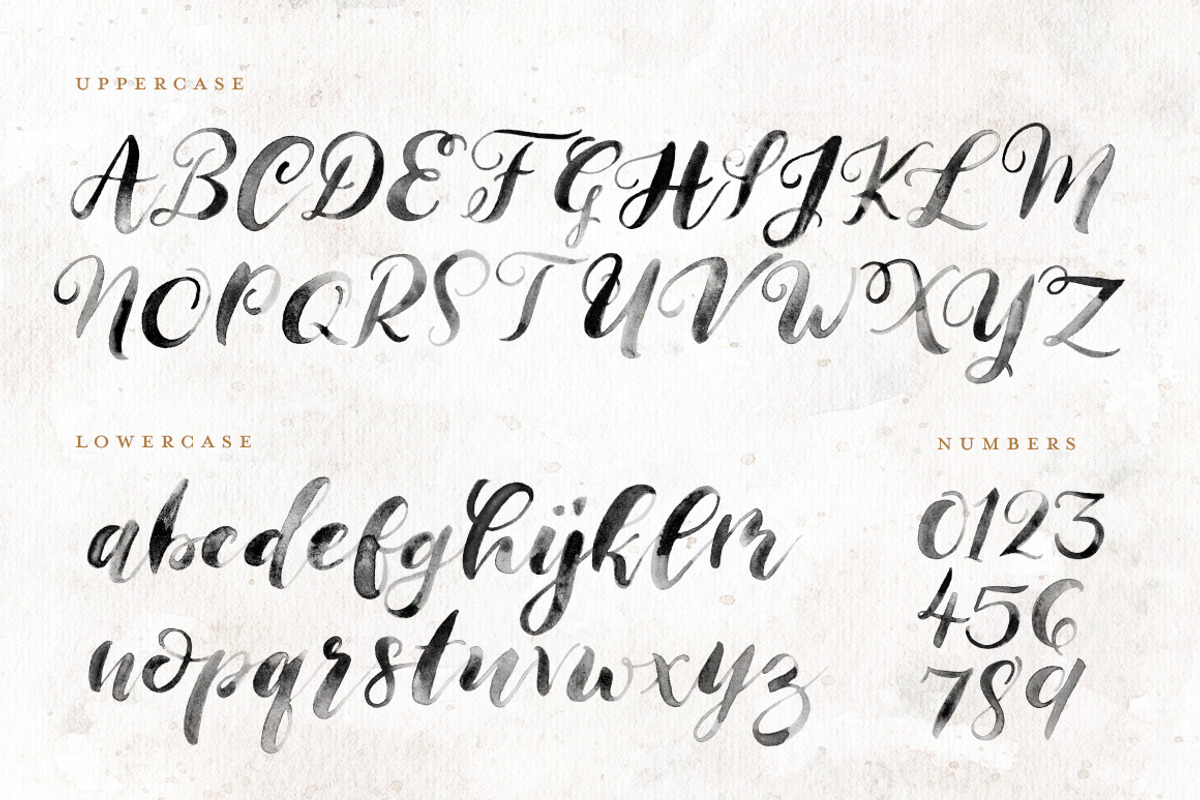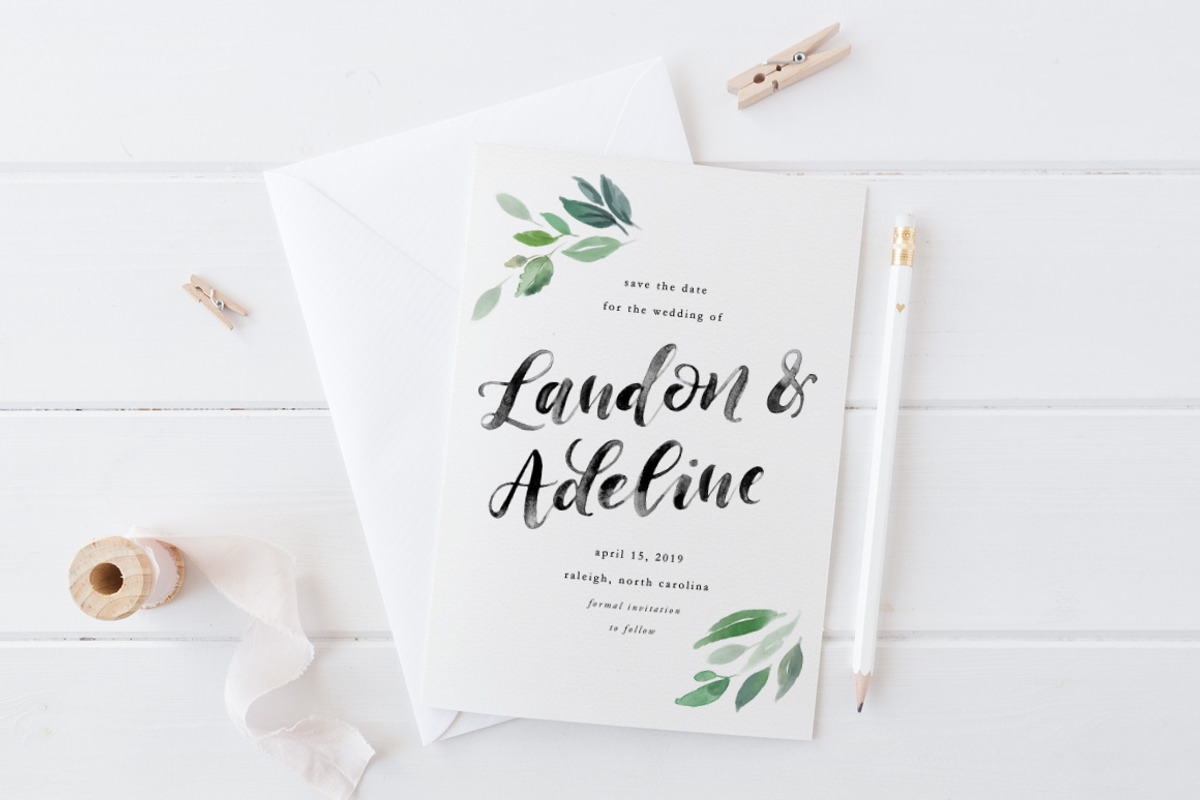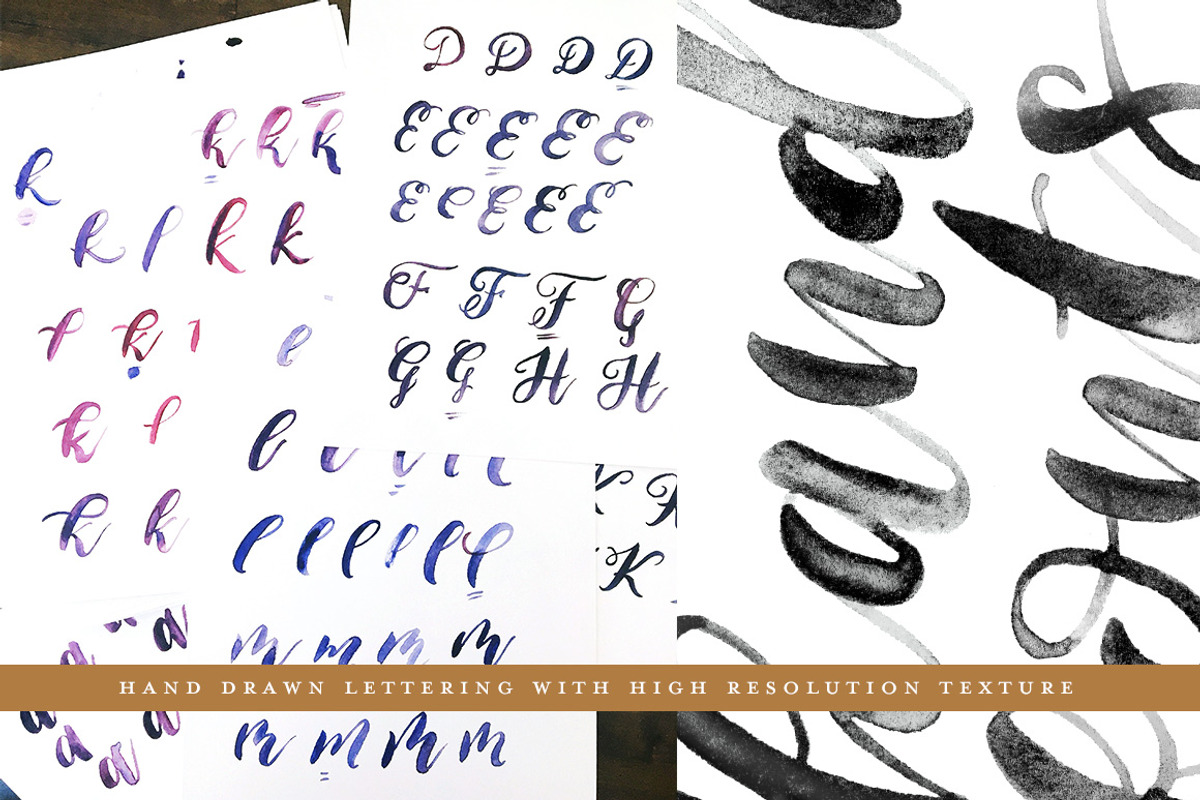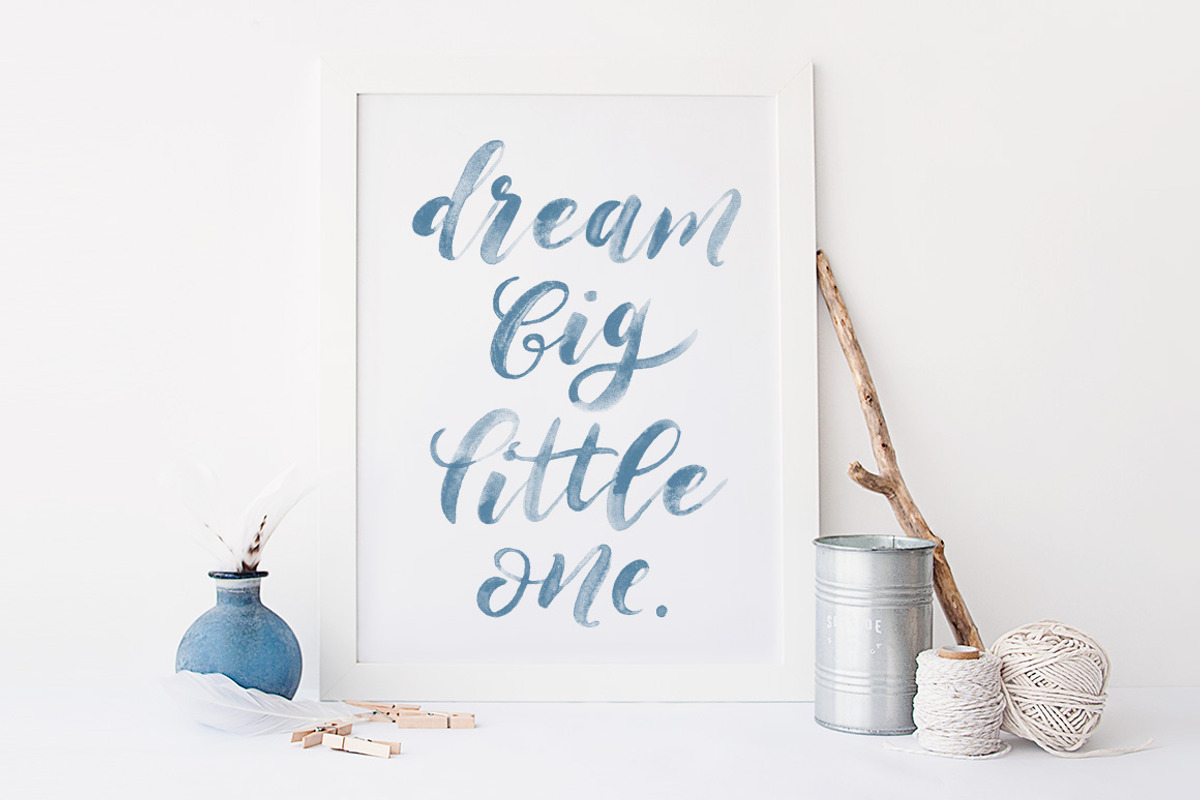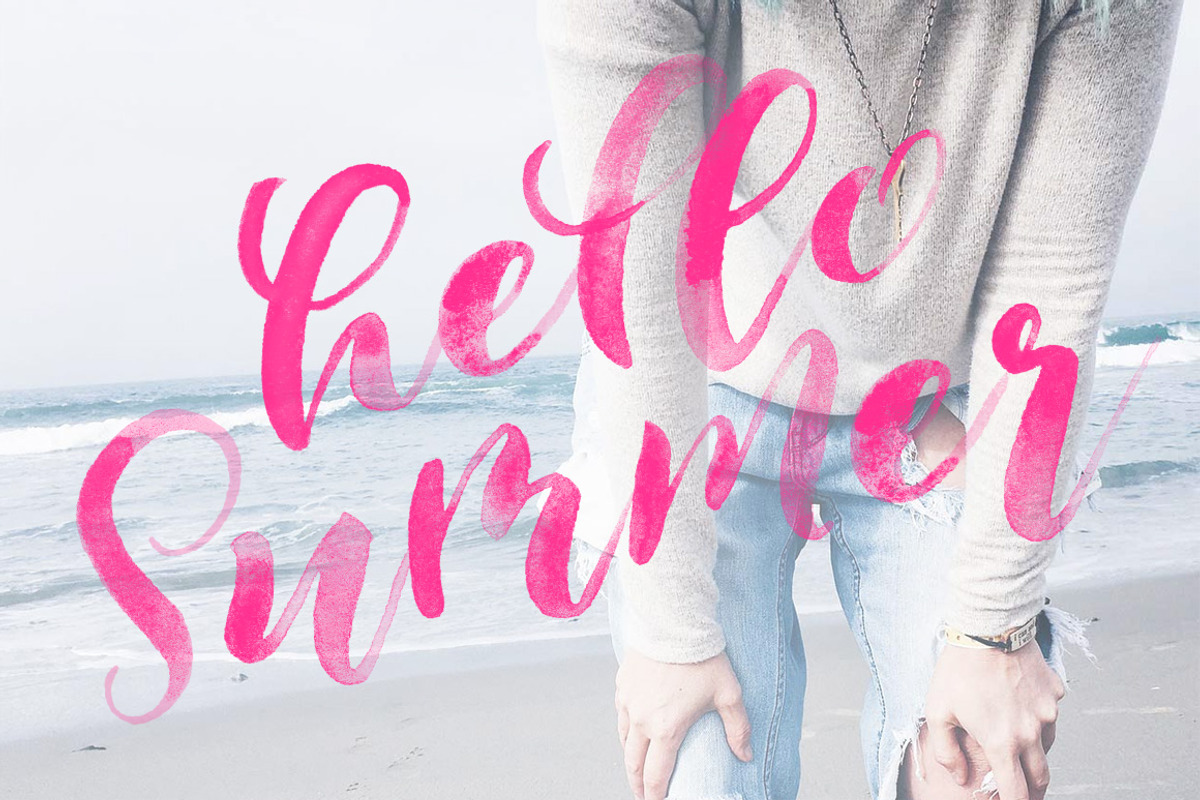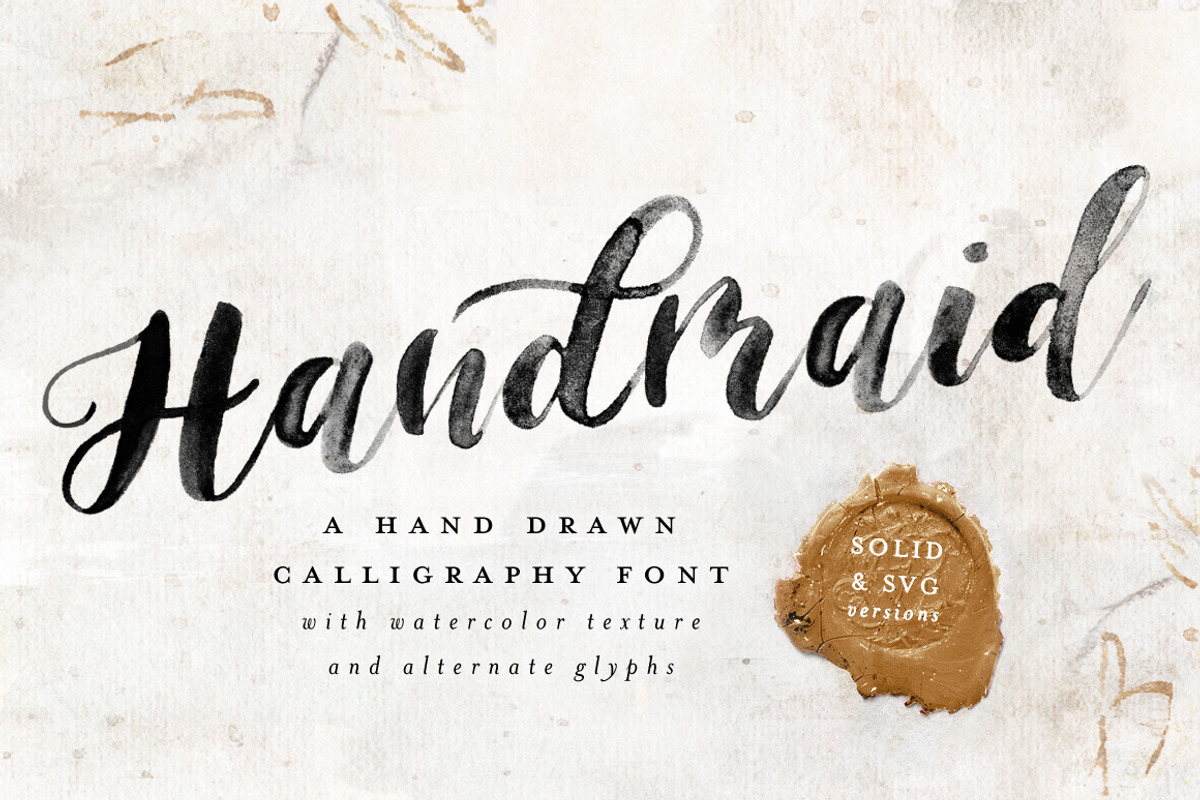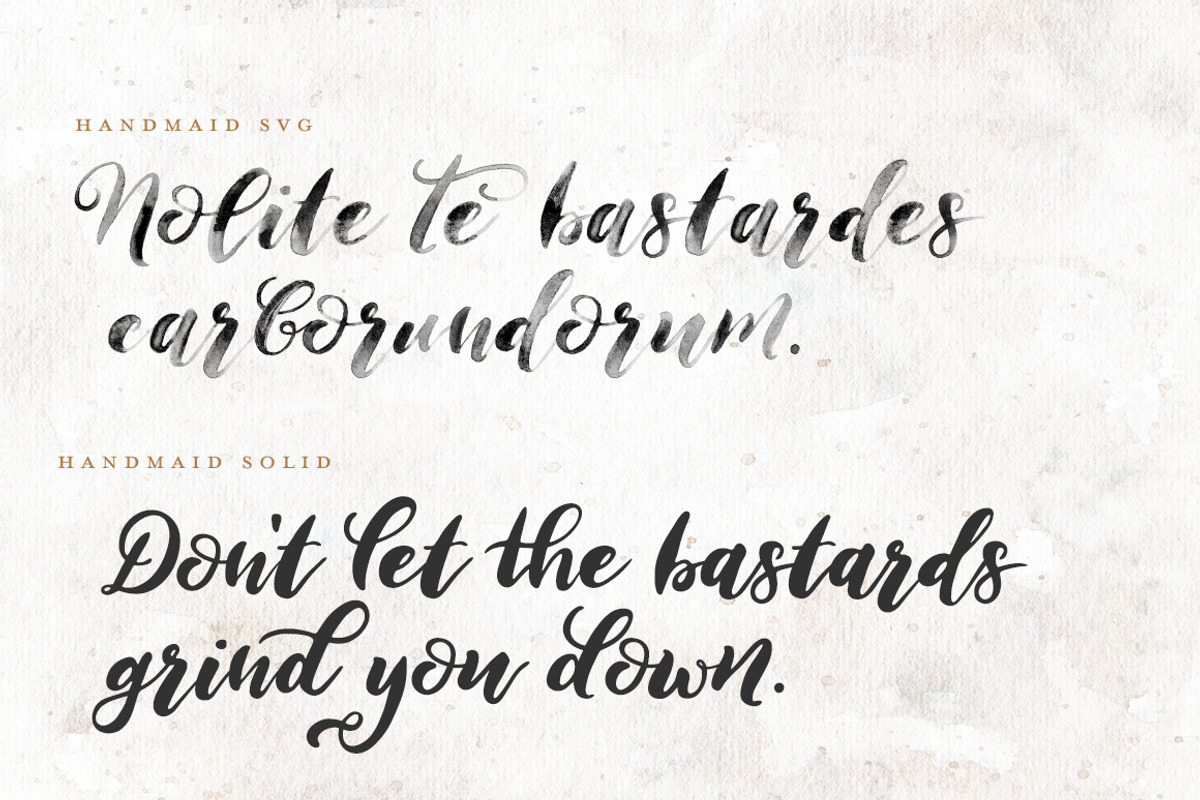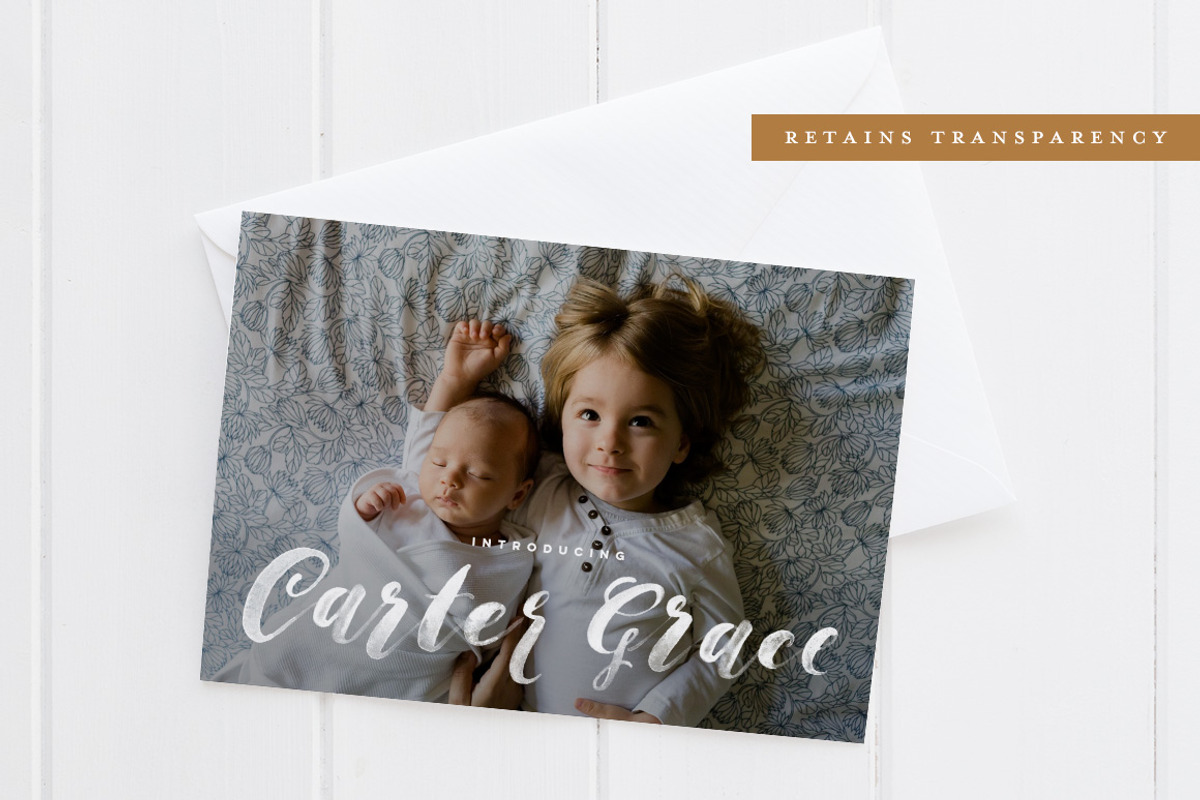
Handmaid SVG + Solid Font
Handmaid SVG: a semi-transparent OTF font file that maintains authentic watercolor paper textures
Handmaid Solid: a smooth, vector-based OTF font file that is supported by a wide variety of programs
Alternate glyphs for each lowercase letter (except "x") to add variety to your design
Custom ligatures (i.e. "th") to make select letter pairings interact more smoothly
Spanish language character support